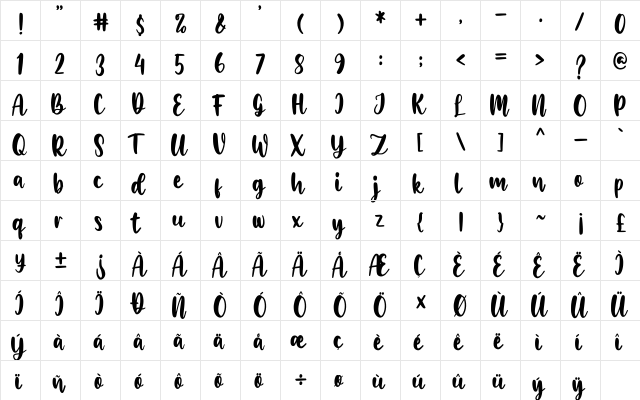
Wheslayne Script Regular
Design Context for Wheslayne Script Typeface
Wheslayne Script flows with the natural rhythm of handwritten lettering, making it ideal for designs that call for warmth and personal expression.
Font Pairing: Combine Wheslayne Script with a simple geometric sans for maximum contrast — the tension between flowing curves and clean structure is a classic typographic pairing.
Pro Tip: Use Wheslayne Script for short runs of text — names, titles, or taglines. Extended body copy in script faces tires the eye quickly.